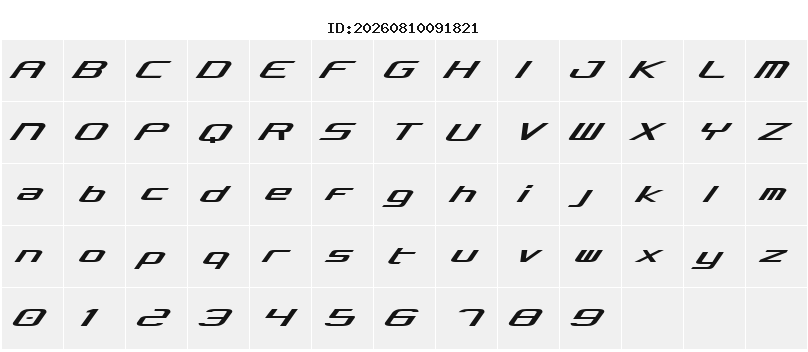
PCLifeWide Glide Preview
• Font Name: PCLifeWide Glide
• Full Font Name: PCLifeWide Glide
About PCLifeWide Glide.ttf
PCLifeWide Glide.ttf is a modern, elegant sans-serif font designed for ultimate readability and visual harmony. Perfect for branding, headlines, web design, and print materials.